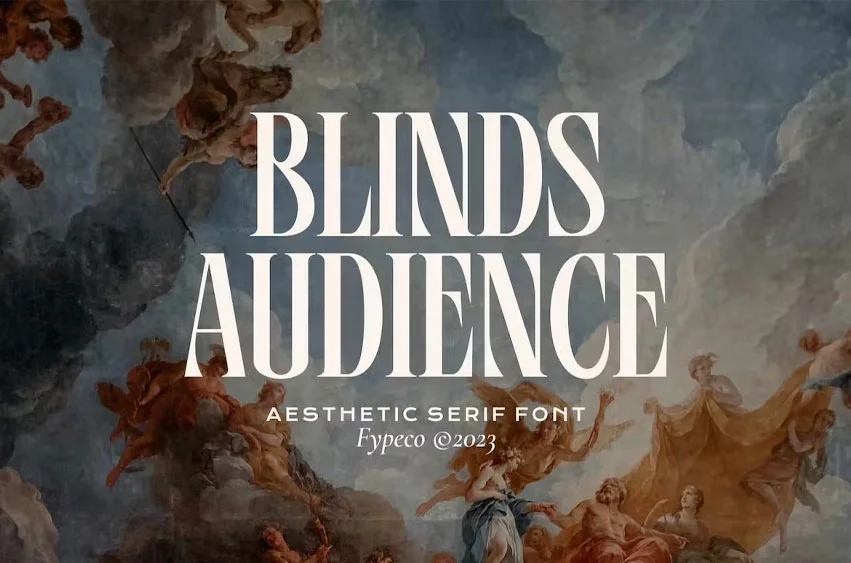
Blinds Audience Font
Blinds Audience Font is an aesthetic serif font with a modern look. It can be perfectly applied to other various typographic forms, such as magazines, books, greeting cards, packaging, fashion, quotes, labels or any type purpose.